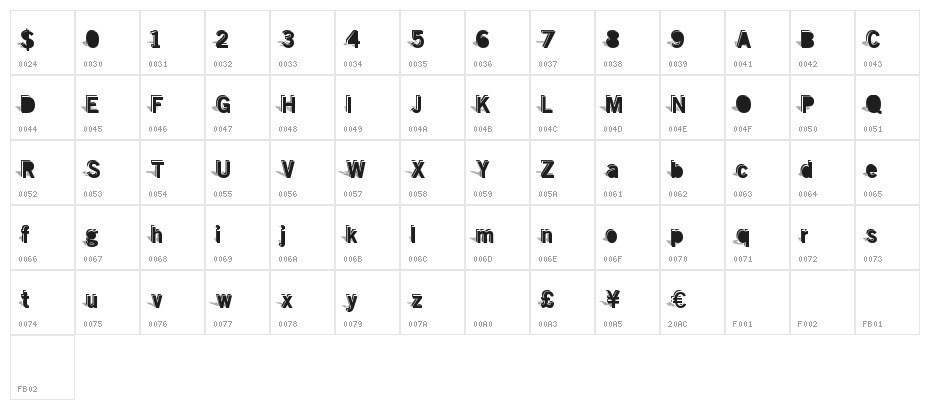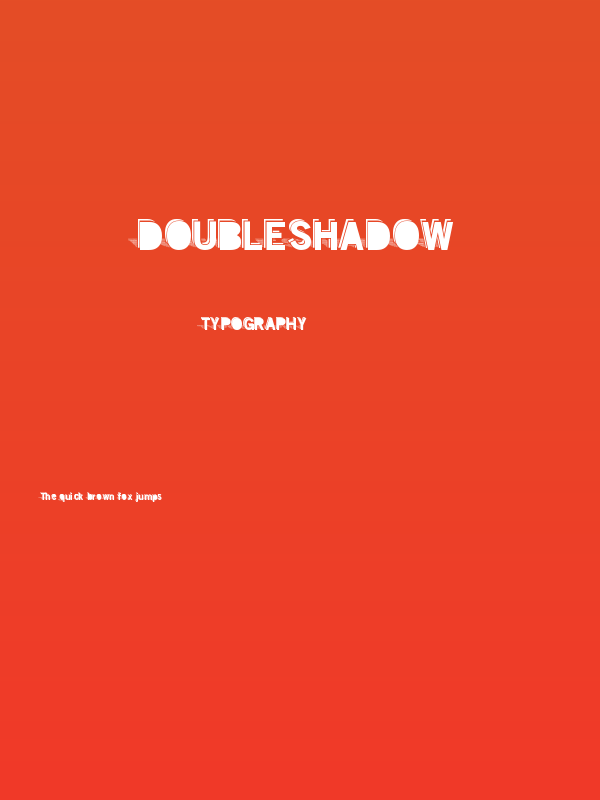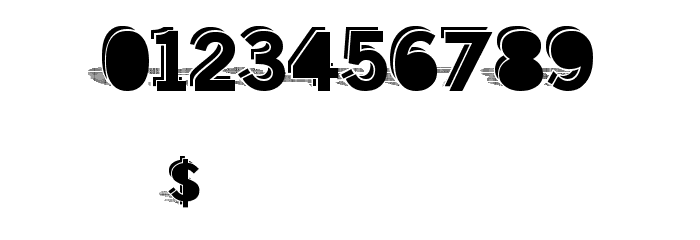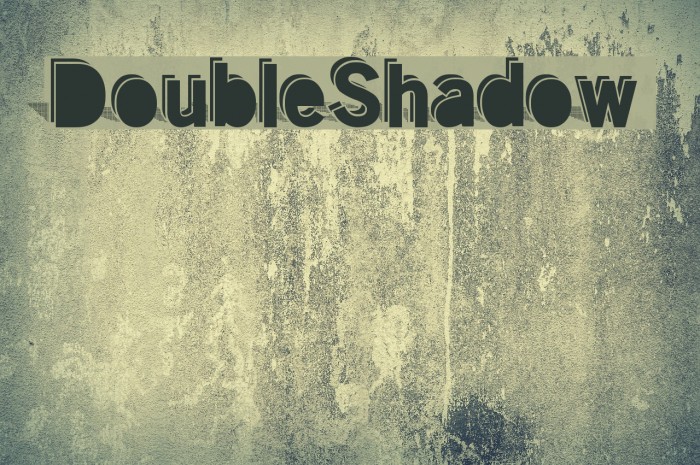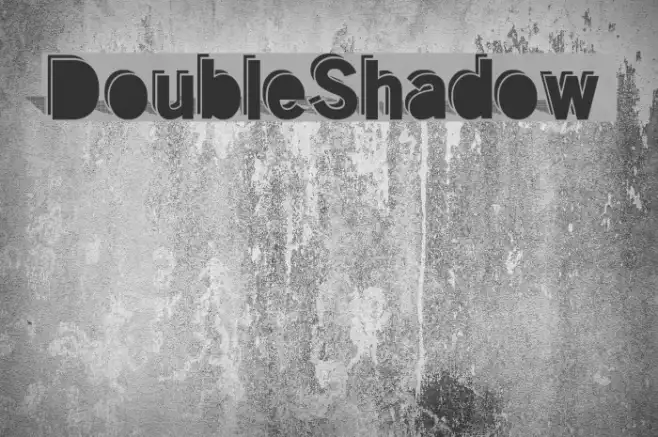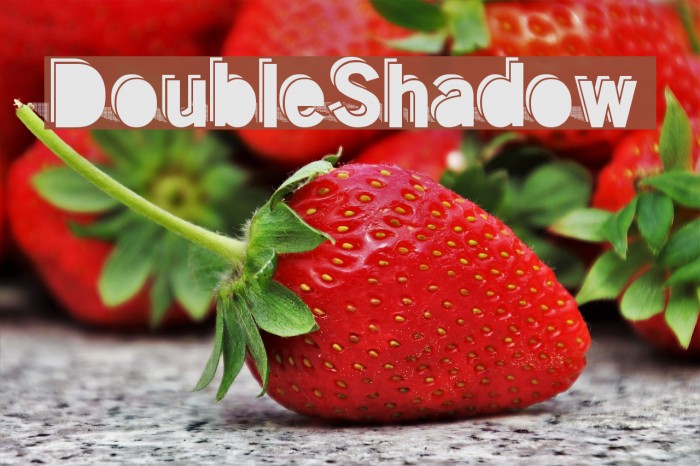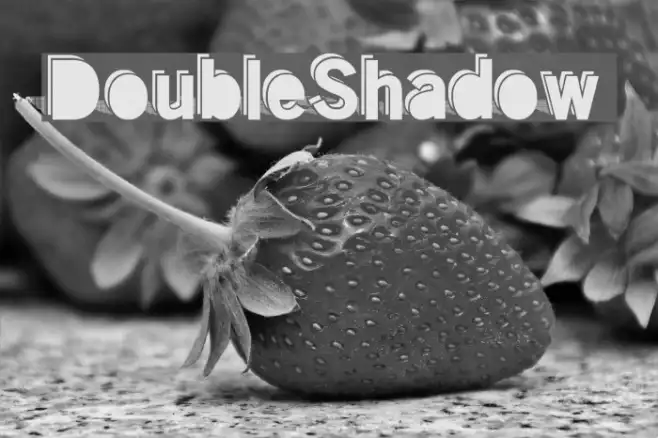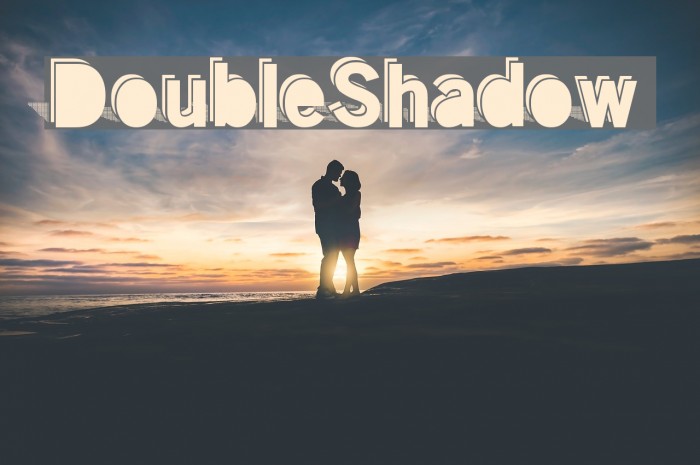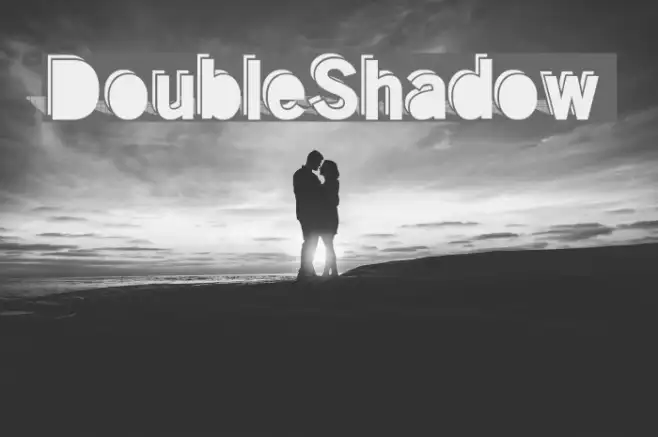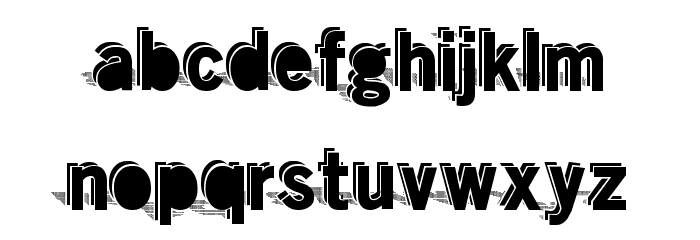
DoubleShadow Font
DoubleShadow Description
This font features a bold, impactful design with a distinctive double shadow effect that adds depth and dimension to each character. The uppercase and lowercase letters maintain a consistent weight, providing a strong visual presence. The numerals and special characters are equally bold, ensuring uniformity across all text. The shadow effect gives the font a unique, eye-catching appearance, making it suitable for attention-grabbing designs. The characters are well-spaced, allowing for clear readability despite the complex shadowing.